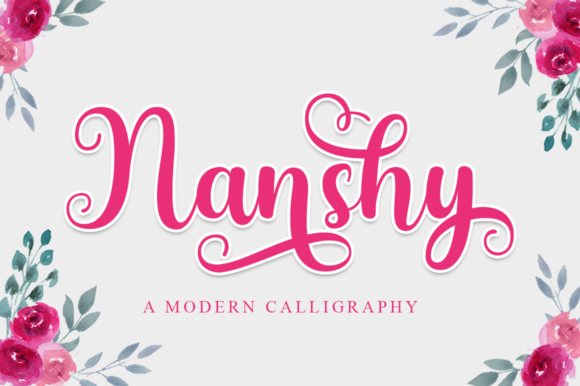
Introducing Nanshy, the captivating script font that will make your designs shine brighter than the city lights. Inspired by the vibrant energy of New York, Nanshy embodies the essence of love, passion, and creativity. Its authentic feel and modern calligraphy style will instantly elevate your designs, adding a touch of sophistication and charm.
With Nanshy, you'll have the power to transform your wedding invitations into enchanting works of art, leaving your guests breathless. Its delicate strokes and graceful curves will add a romantic touch to your stationery, making each piece a keepsake to be treasured forever.
Embark on a creative journey with Nanshy and create captivating social media posts that will capture your audience's attention and leave them wanting more. Its eye-catching style will make your words come alive, turning your social media presence into an unforgettable experience.
Spread joy and love with Nanshy's adorable greeting cards. Its charming appearance will make your heartfelt messages even more special, leaving a lasting impression on your loved ones. Whether it's a birthday wish, a thank you note, or a simple hello, Nanshy will add a touch of warmth and personality to every card.
Nanshy is more than just a font; it's a creative companion that will inspire you to explore new horizons and create designs that ignite emotions and leave a lasting impact.
So, embrace the beauty of Nanshy today and let your creativity soar to new heights!